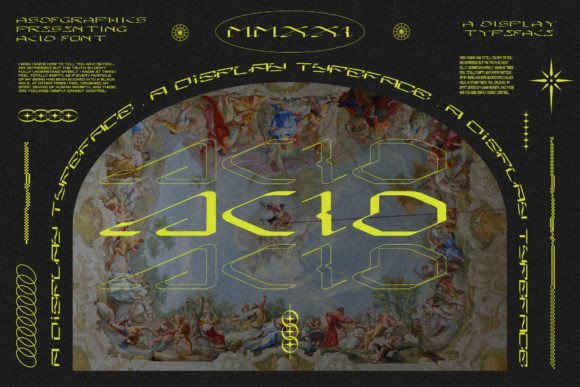
The Birth of a New Era in Typography
Remember that moment when you stumbled upon a font that spoke directly to your creative soul? For designers, it’s a thrill like no other – a spark that ignites a wave of ideas and inspires new projects. For me, that moment came when I discovered Acid Font, a modern calligraphic and experimental typeface that’s redefining the boundaries of typography.
Acid Font is a contemporary hybrid of blackletter and serif, a metamodern grotesque that exudes elegance and style. Designed for text display purposes, it brings a bold, gothic, and sharp impression to your design, making it perfect for large headlines, logos, and compositions. Whether you’re a graphic designer, artist, or simply a typography enthusiast, Acid Font is a valuable addition to your toolkit, offering endless possibilities for creative expression.
Key Features of Acid Font
- Font Size: Acid Font is designed to be highly legible in various font sizes, from 8-point to 24-point, making it suitable for use in a variety of contexts, including body text, headings, and titles.
- Resolution: Acid Font is optimized for use at high resolutions, up to 300 DPI, ensuring crisp and clear text even in large-scale applications.
- Unique Characteristic: Acid Font features a unique blend of geometric and organic elements, creating a distinctive and eye-catching visual style that sets it apart from other fonts.
- Language Support: Acid Font includes comprehensive language support, with over 200 glyphs covering a wide range of languages, including Latin, Cyrillic, and Greek alphabets.
- Font Weight: Acid Font is available in multiple weights, including light, regular, bold, and black, allowing users to choose the perfect weight to suit their design needs.
Acid Font Review
As a designer, I’ve had the chance to work with Acid Font, and I must say it’s been an interesting experience. The font is bold, playful, and ✨ adds a touch of personality to any design. I love how it can be used in both digital and print projects, from logos to advertising materials.
Some of the things that work well with Acid Font include:
- ✨ Its unique, hand-drawn look that sets it apart from more traditional fonts.
- ✨ The wide range of weights and styles available, making it easy to customize to your needs.
- ✨ The font’s versatility in terms of usage, from headings to body text.
- ⚠️ The font may not be suitable for formal or professional projects where a more traditional look is required.
- ⚠️ Some users may find the font too playful or distracting, especially in complex designs.
- ⚠️ The font’s size can be difficult to read at smaller sizes, so be sure to use it wisely.
Overall, I think Acid Font is a great addition to any designer’s toolkit. While it may have some limitations, its unique look and versatility make it a great choice for the right project. Just be sure to use it thoughtfully and in context.
Tips for Getting the Most Out of Acid Font
Acid Font is a versatile font that can be used in a variety of design applications. Here are a few tips for getting the most out of it:
- Experiment with different font sizes and styles to find the perfect fit for your design.
- Use Acid Font in combination with other fonts to create a unique and eye-catching design.
- Consider using Acid Font for titles and headings to add a touch of elegance to your design.
Acid Font is a great choice for a variety of design applications, including:
- Brochures and
Alternatives to Acid Font for Designers